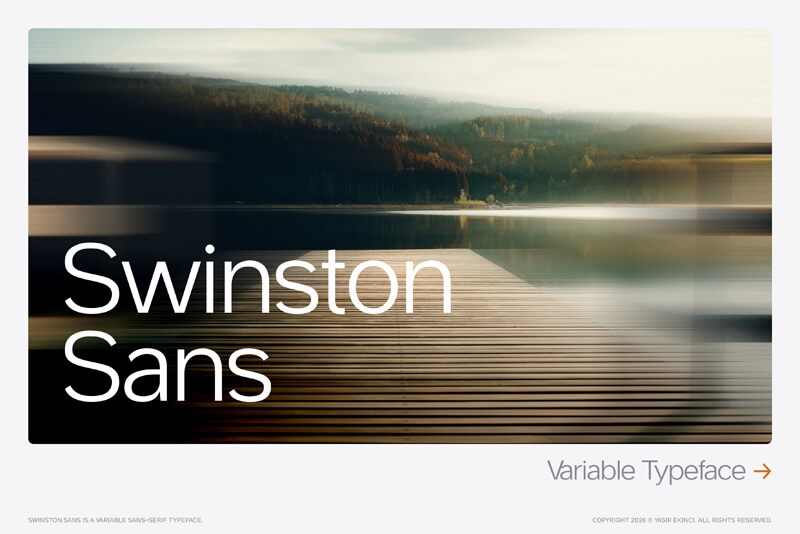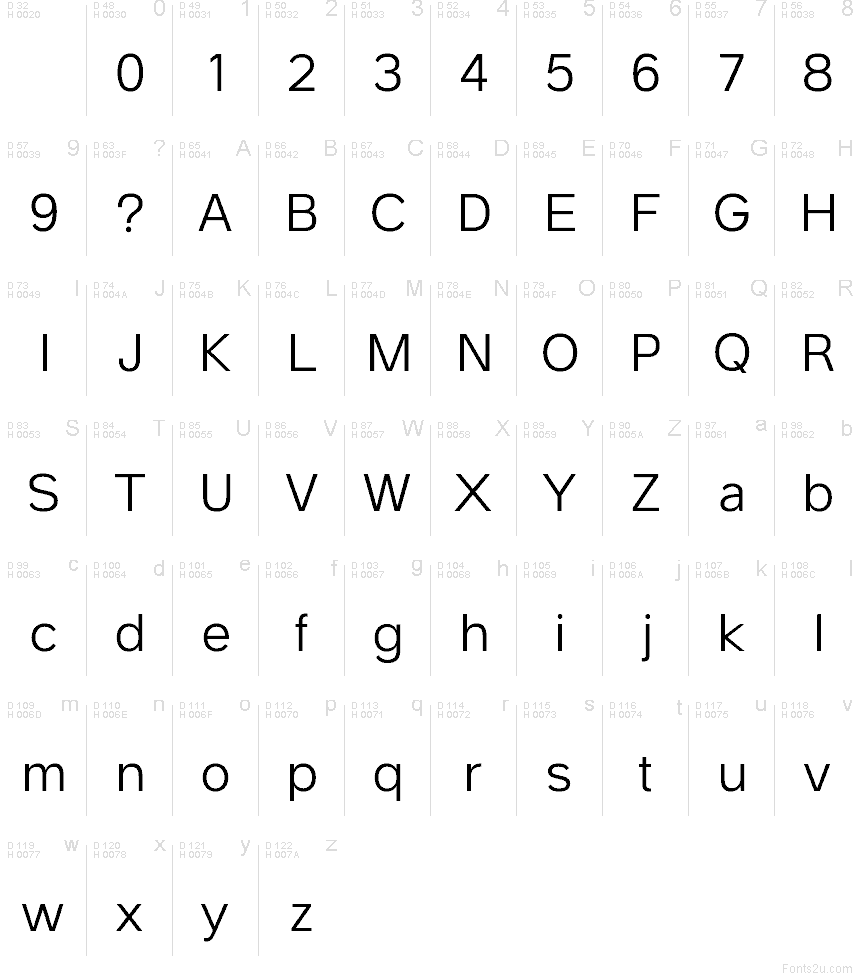
Swinston Sans Demo Regular
Swinston Sans font by Yasir Ekinci is a free geometric sans serif typeface that threads a precise line between machine logic and human warmth. Its clean skeleton is interrupted by signature 15-degree angled stroke endings, giving each word a subtle sense of motion, like air flowing over a streamlined surface. The spacing feels measured and calm, so even dense text blocks read as organized, not crowded.
Using Swinston Sans, you get a tech-forward voice that still feels approachable, making it a natural fit for product interfaces, SaaS branding, pitch decks, transport or logistics graphics, editorial infographics, and packaging for smart devices. This free font shines when you use larger sizes for headings and a neutral grotesk or system sans for supporting copy, letting those aerodynamic angles quietly carry the innovation message.